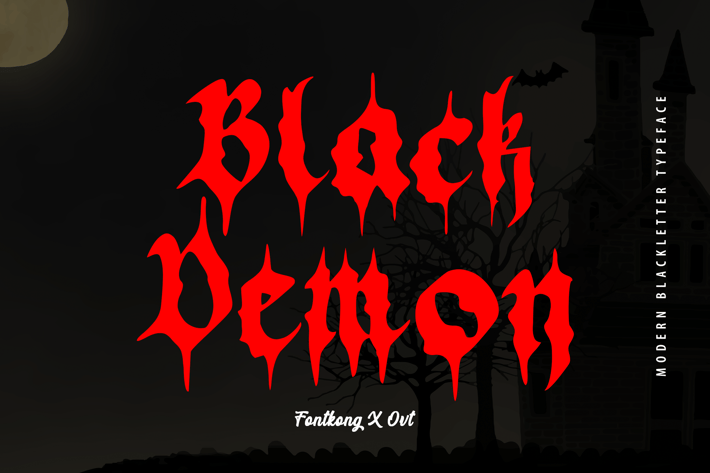
Black Demon - Modern Blackletter Typeface
Introducing "Black Demon," a modern blackletter typeface that commands attention with its bold presence and contemporary edge. Perfect for graphic designers, typographers, and creatives looking to make a strong statement, Black Demon offers a dynamic interpretation of traditional blackletter styles.
Ideal for branding, posters, album covers, editorial design, and apparel, Black Demon’s robust and expressive characters provide a striking visual impact. Each letter is meticulously crafted to blend the historical essence of blackletter with modern readability, ensuring your designs stand out with a distinctive and powerful style.
The "Black Demon" font includes a comprehensive set of uppercase and lowercase letters, numbers, punctuation marks, and special characters. This versatile set facilitates seamless integration into various design applications, from impactful branding to edgy editorial layouts.
Make a bold statement with Black Demon, the modern blackletter typeface that combines tradition with contemporary flair.